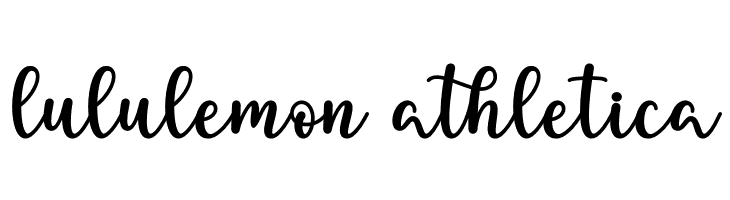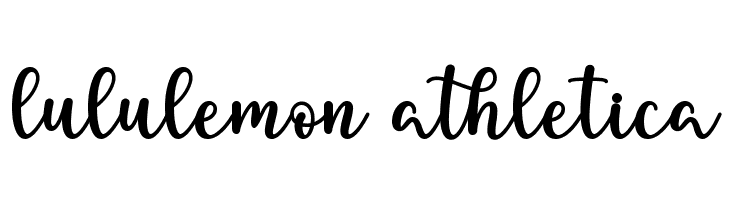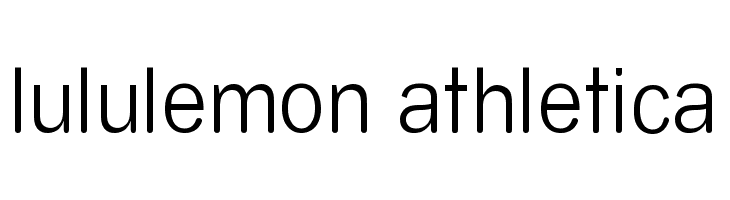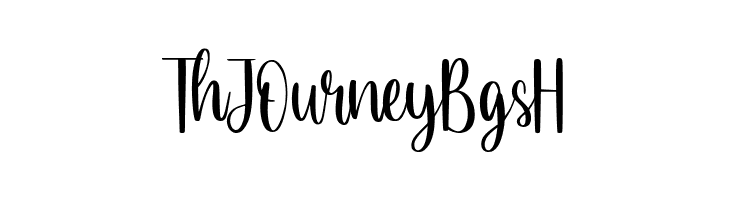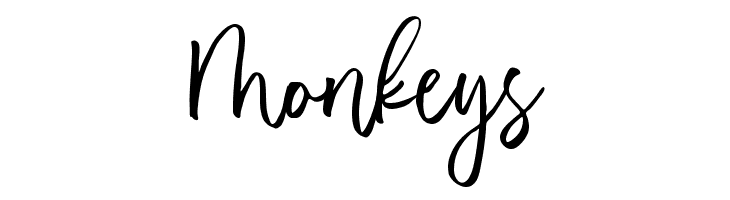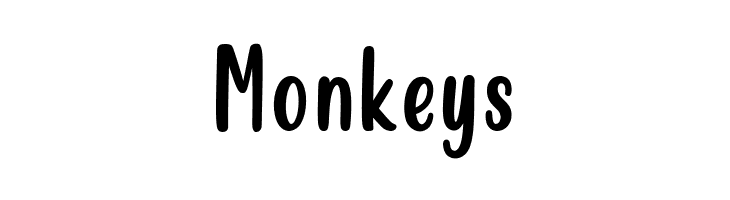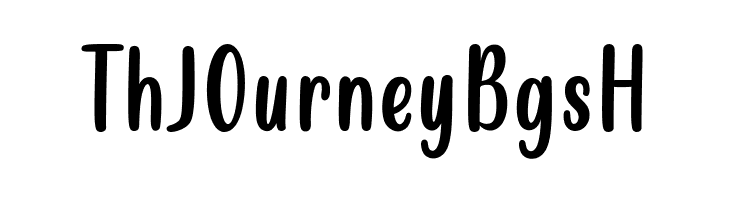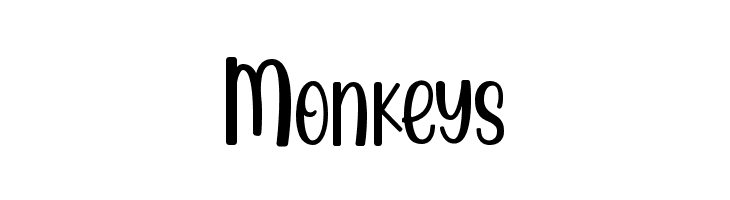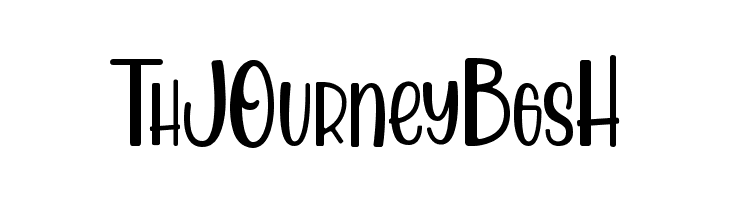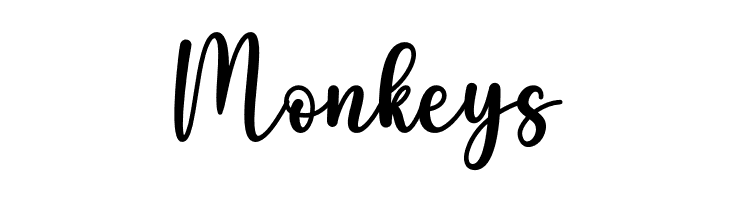
A bold, three-dimensional font with a shadow effect and geometric design.
A lively, handwritten script font with elegant, flowing characters.
A lively, flowing script font with elegant, cursive letterforms.
A bold, dynamic script font with a modern, handwritten style.
A modern sans-serif font with clean lines and excellent readability.
A lively, cursive font with a handwritten, artistic style.
A lively, cursive script font with a playful, handwritten style.
A playful, whimsical font with tall, narrow letters and rounded edges.
A lively handwritten font with smooth, slanted strokes and a casual elegance.
A playful, rounded font with smooth curves and a friendly vibe.